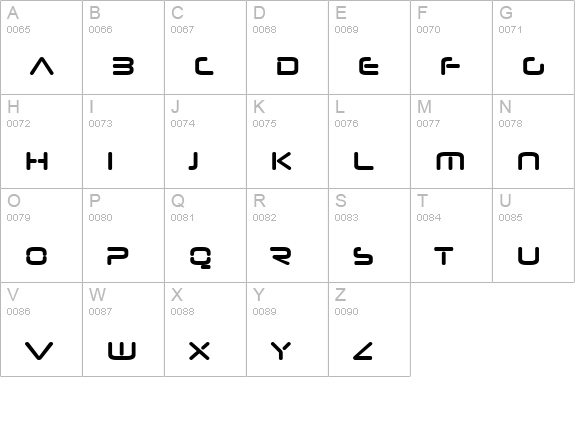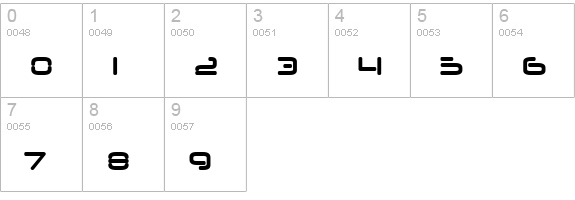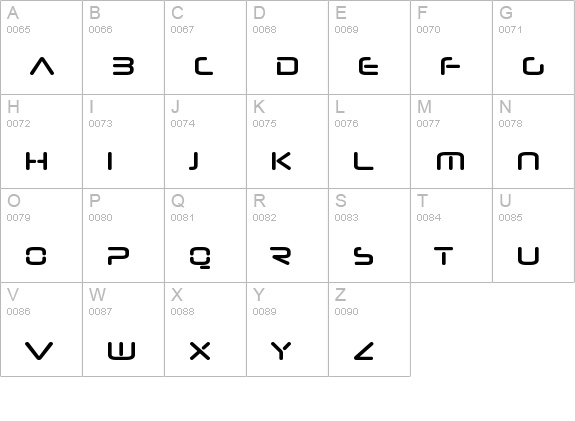
Neuropol Nova Bold Font Details
Neuropol Nova Bold is a strong, high-contrast variant in the Neuropol typeface family \xE2\x80\x94 well suited to headlines, attention-grabbing titles, and strong calls-to-action.
Neuropol Nova Bold is a modern and sleek typeface that exudes confidence and sophistication. With its sharp lines and futuristic aesthetic, this font is perfect for making a bold statement in any design project. The strong, bold characters of Neuropol Nova Bold command attention and convey a sense of strength and authority. What's even better is that Neuropol Nova Bold is available for free download at FontsMarket.com. This means you can easily access this striking font and use it in your projects without any cost. Whether you're designing a website, creating a poster, or working on a branding project, Neuropol Nova Bold will add a touch of contemporary flair that will set your work apart. Don't miss out on the opportunity to enhance your designs with this eye-catching font - download Neuropol Nova Bold for free today!